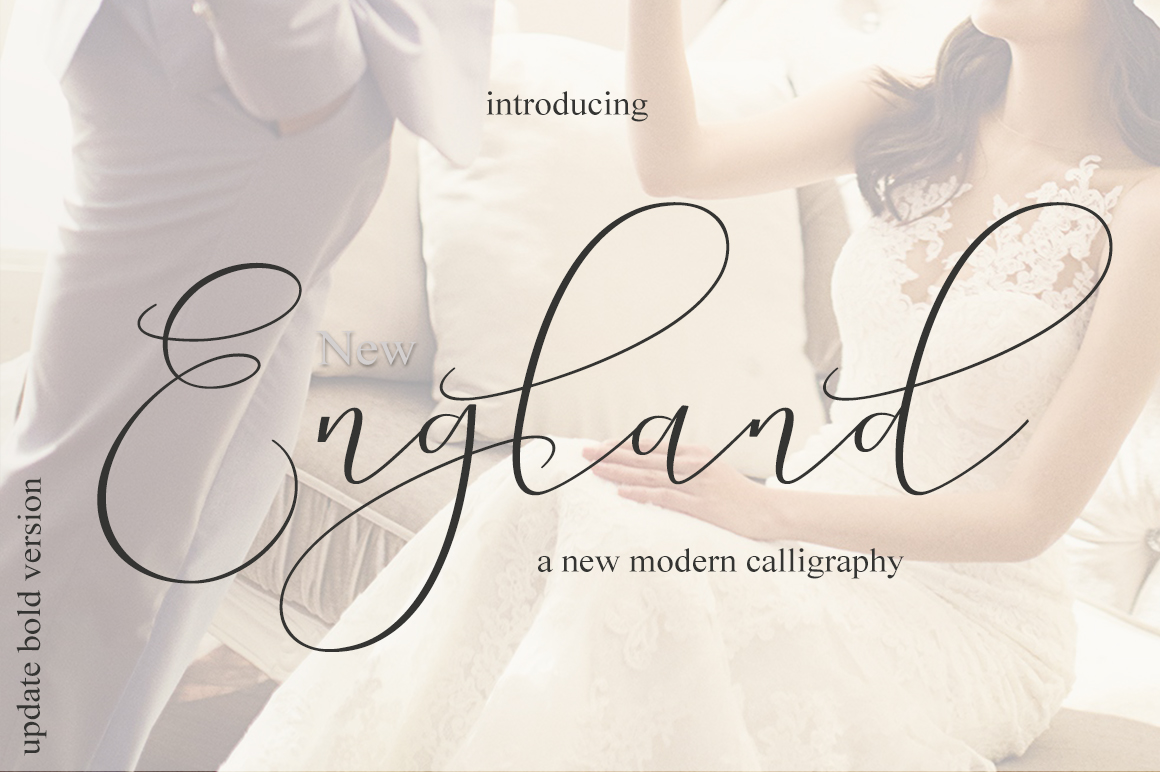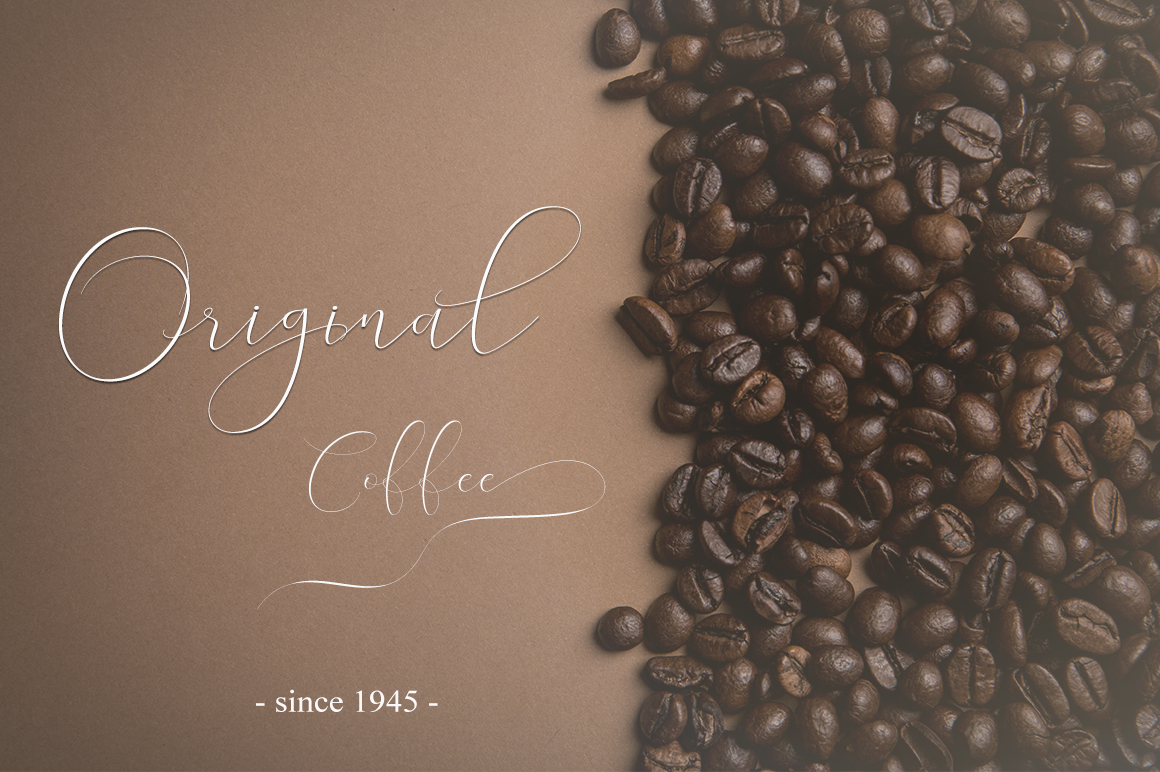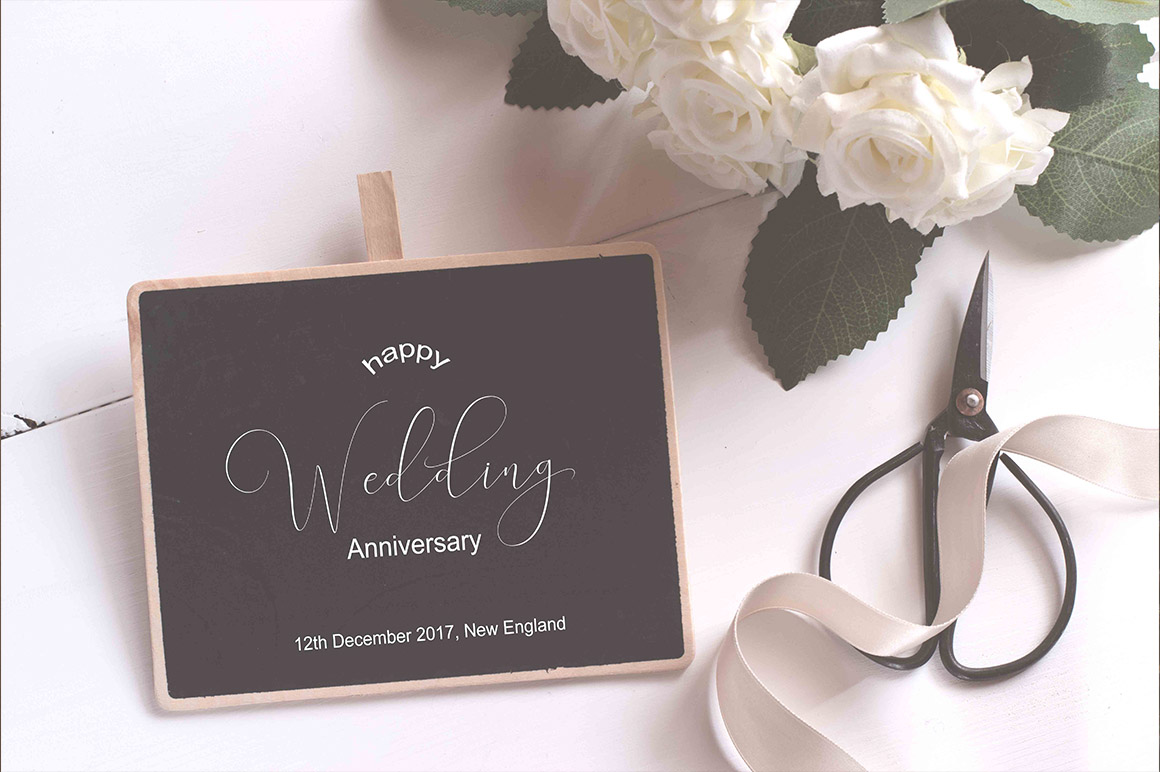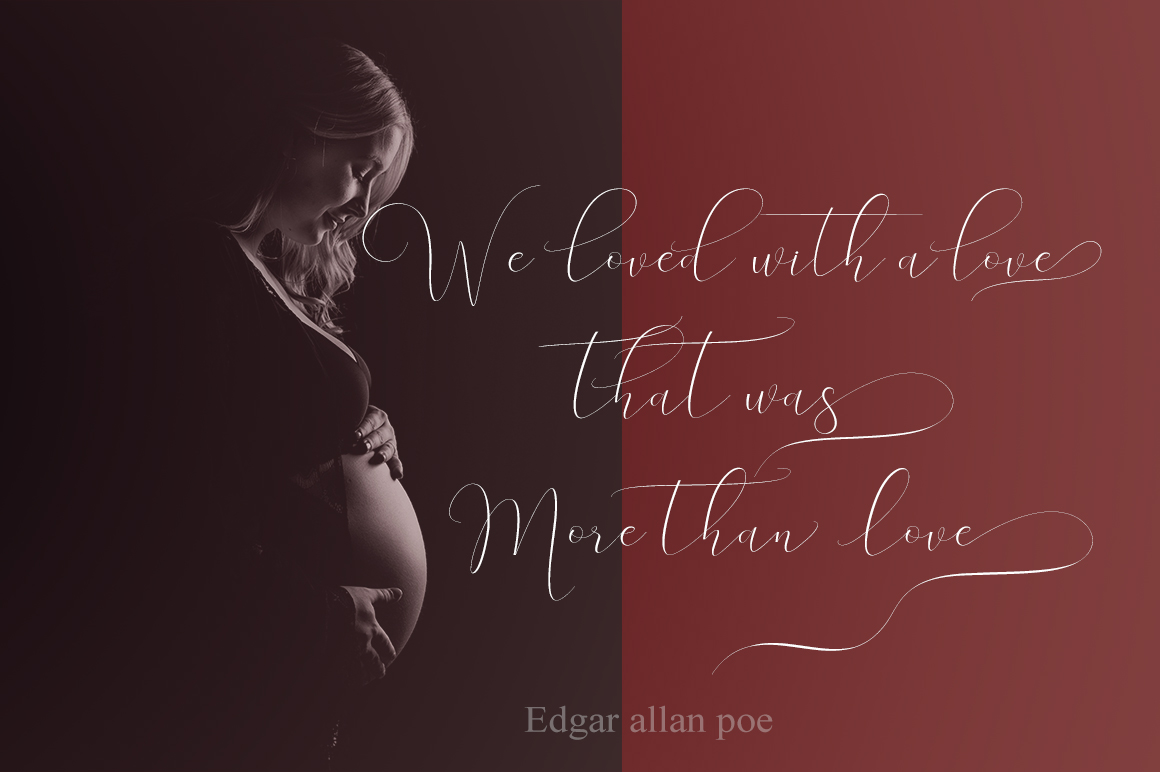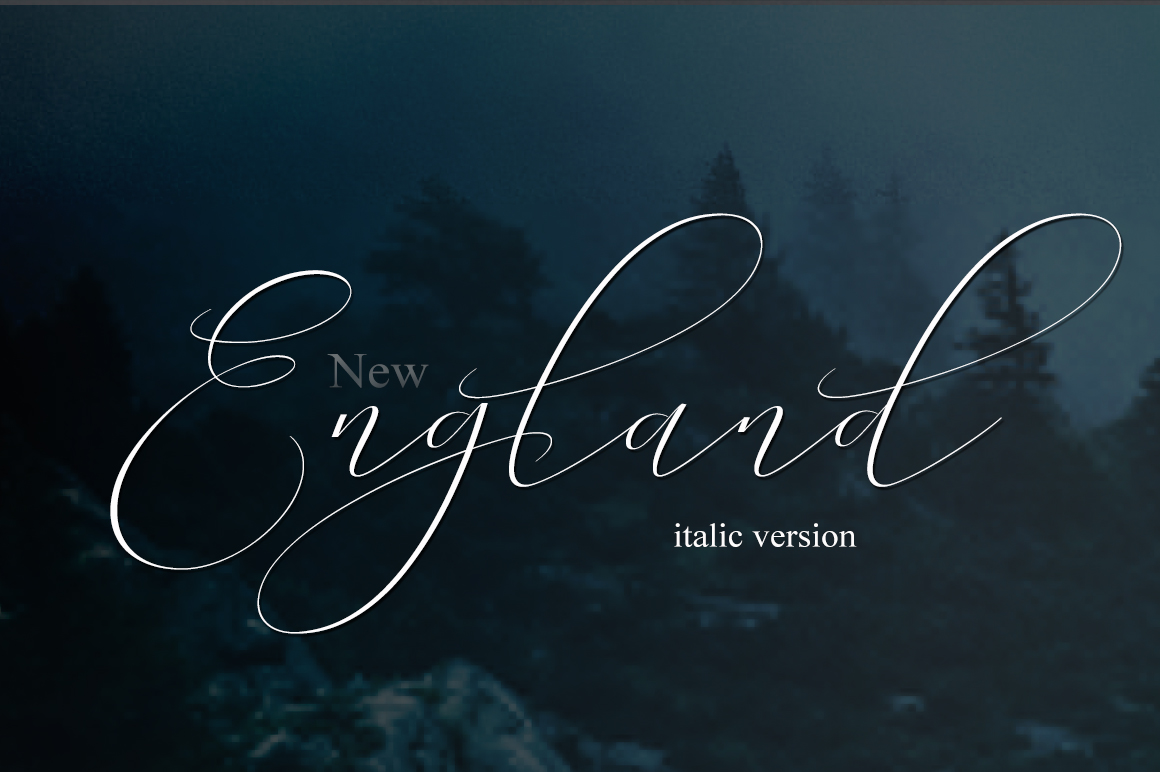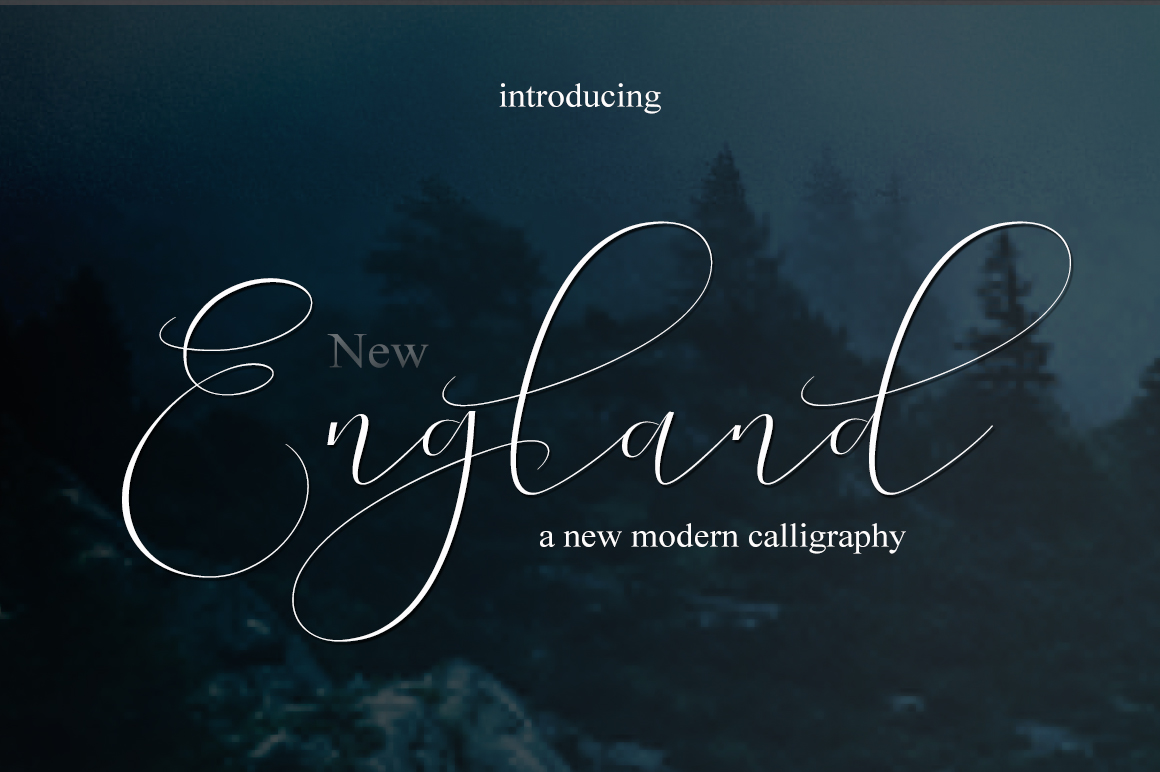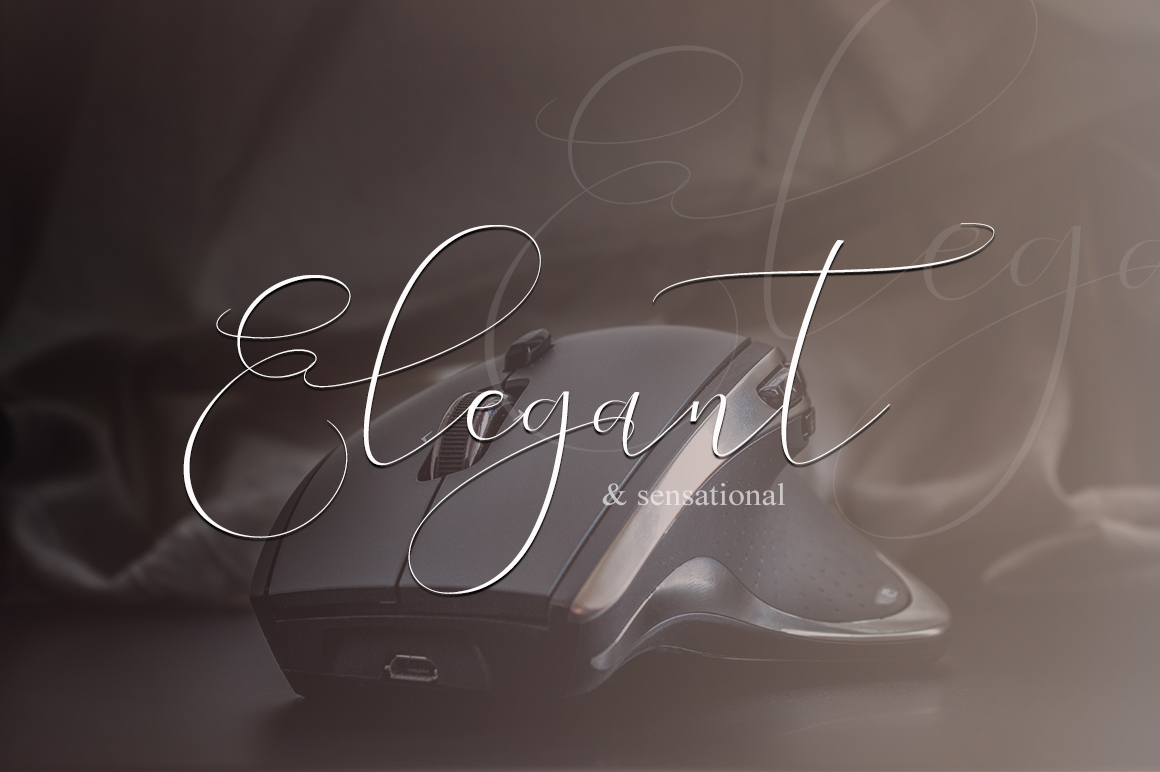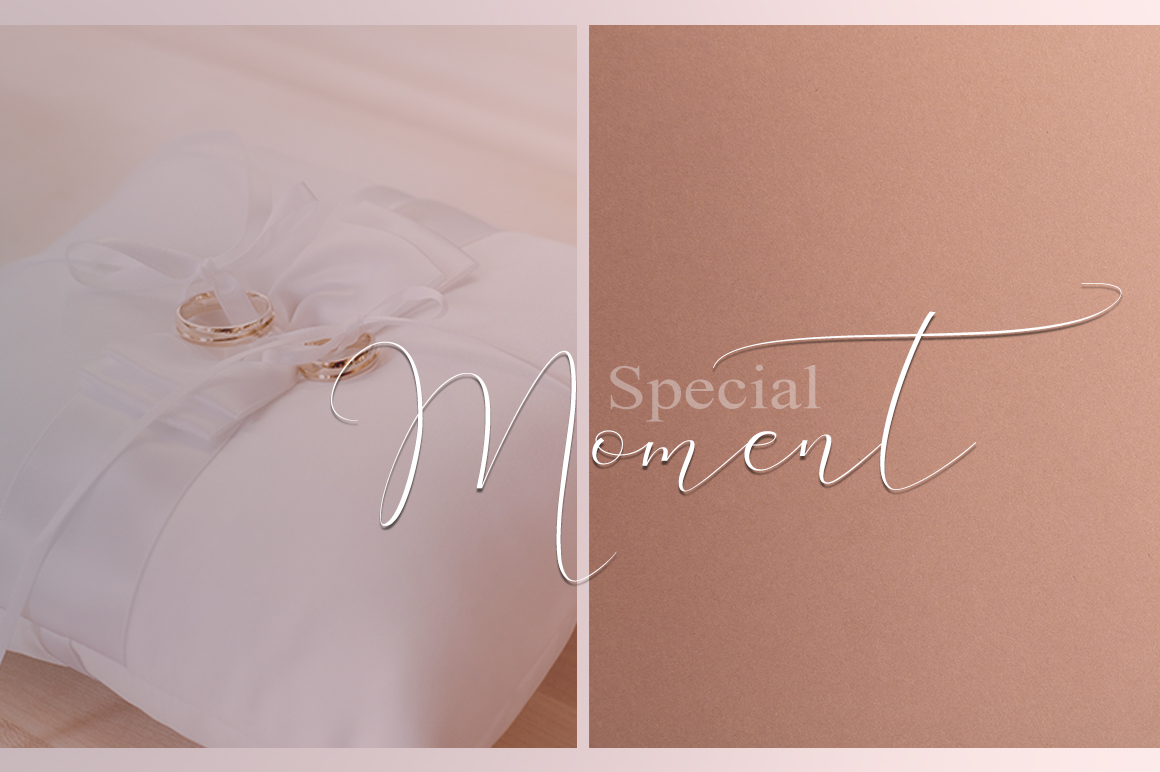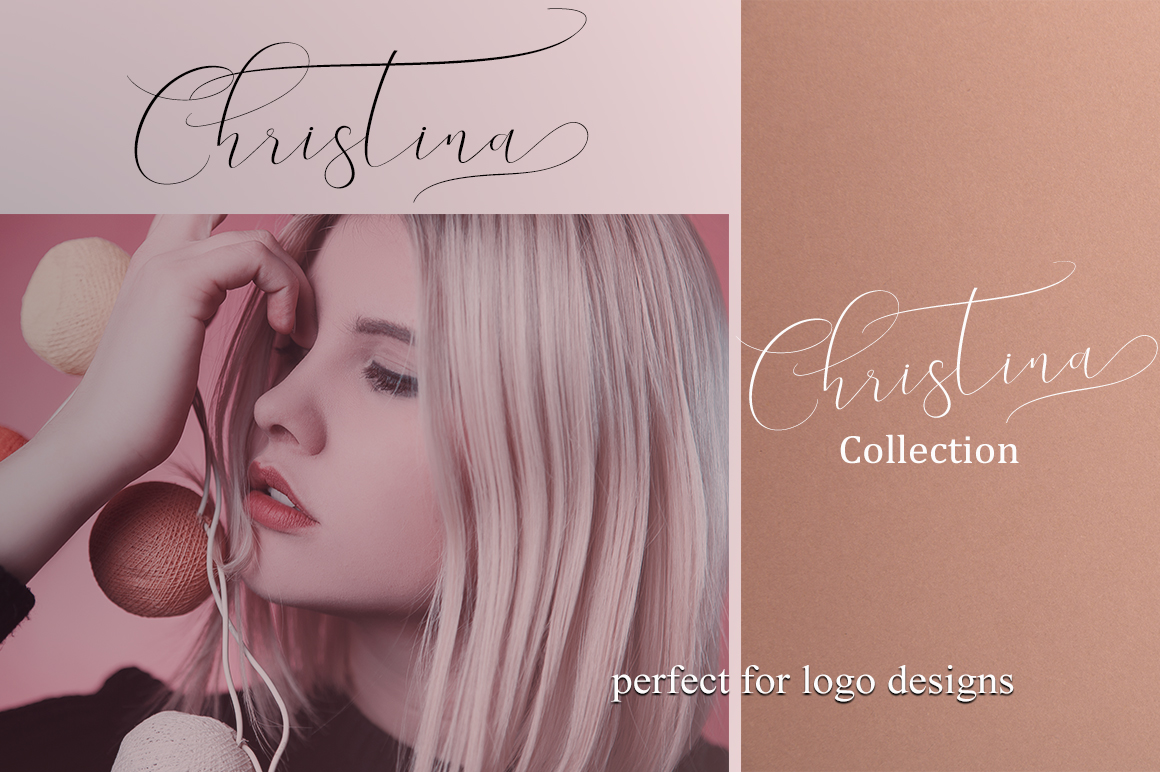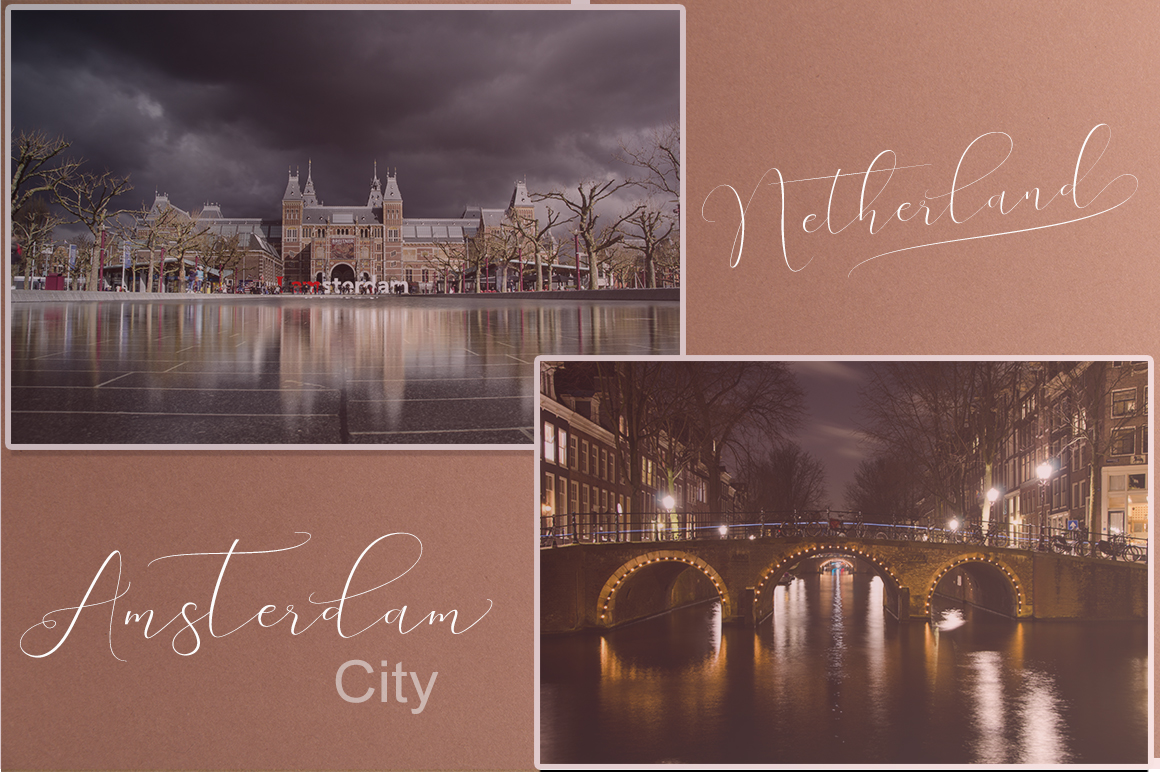
England Font
About England Font
England is a handwritten script, with a modern and sensible style. This font is ideal for wedding and other romantic invitationals and is fully equipped with over 670 glyphs.